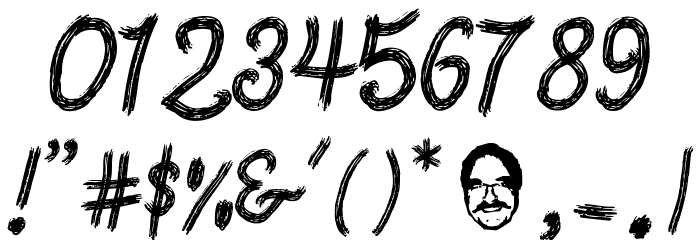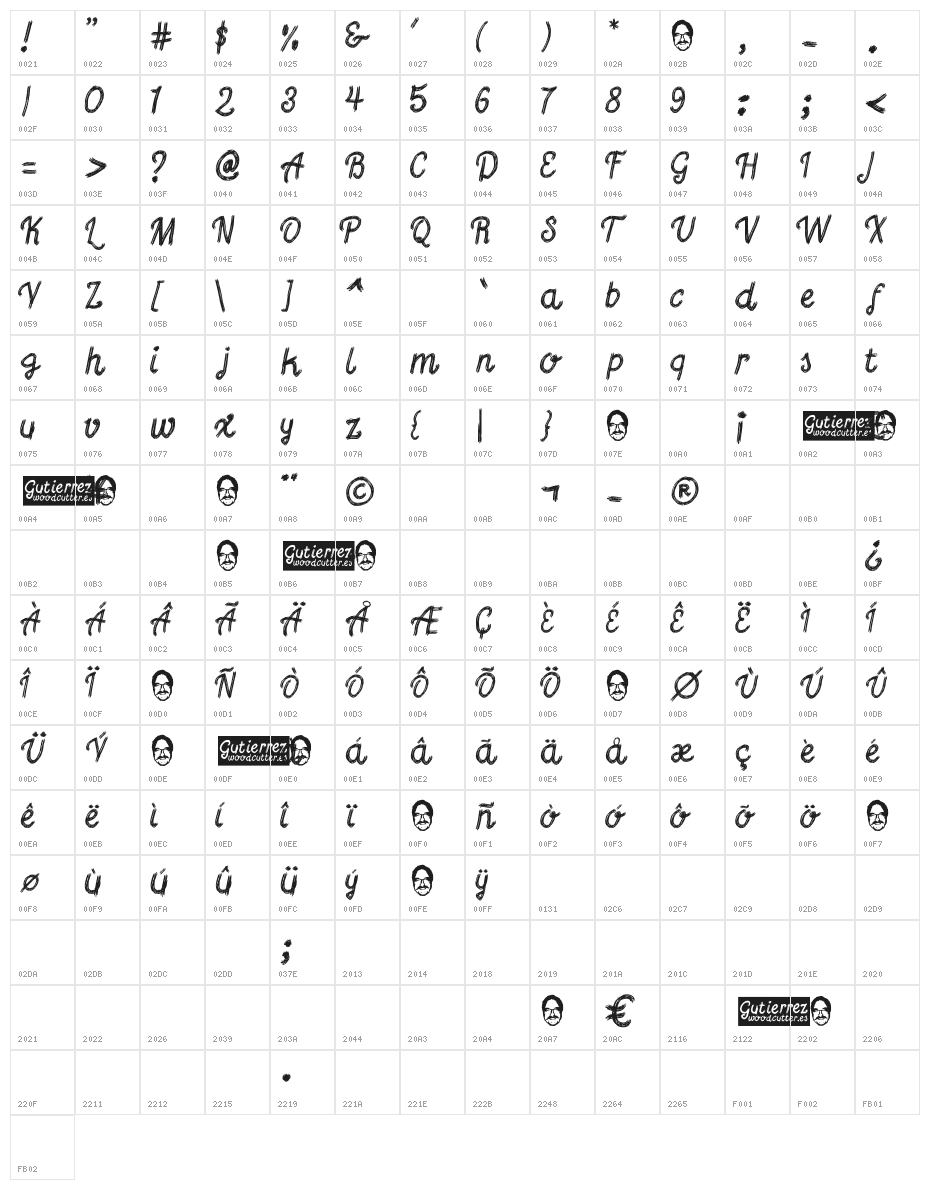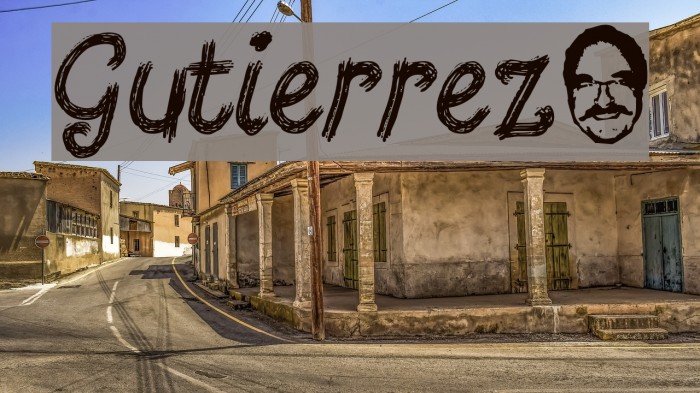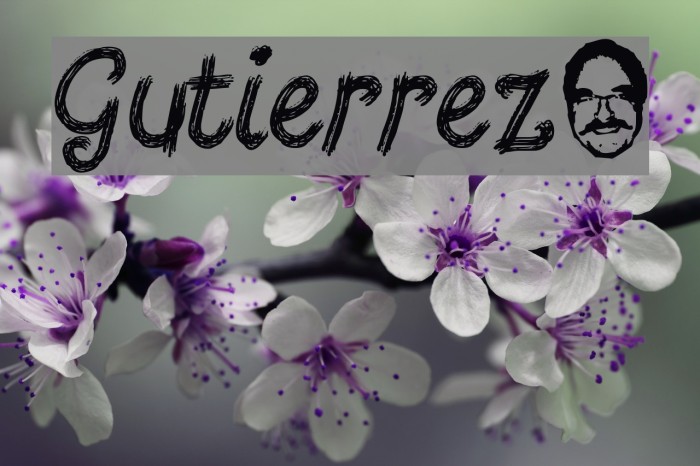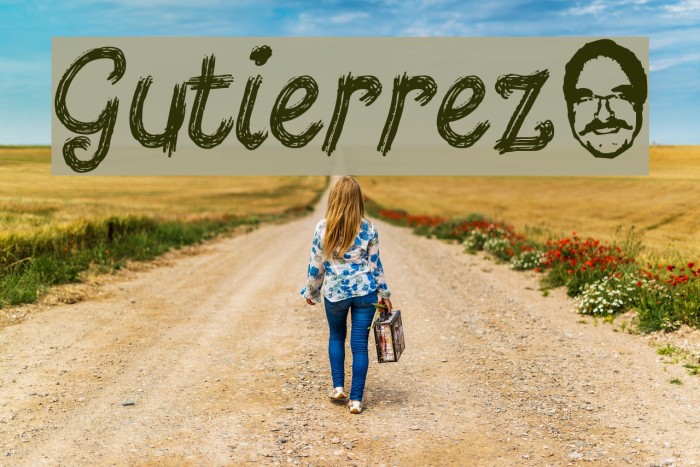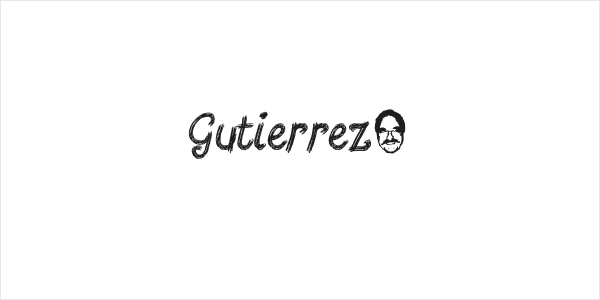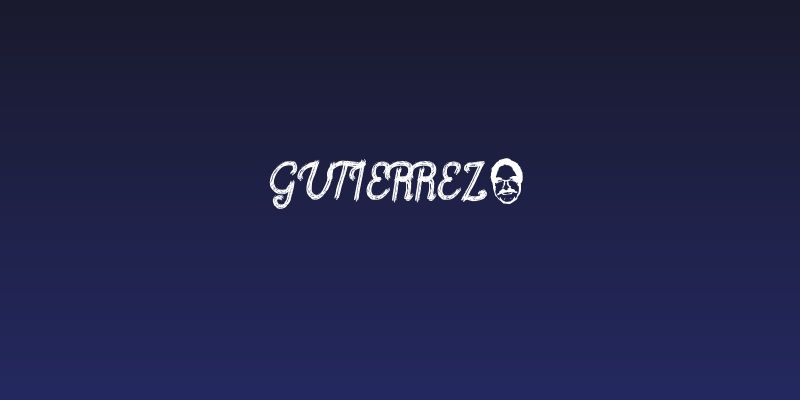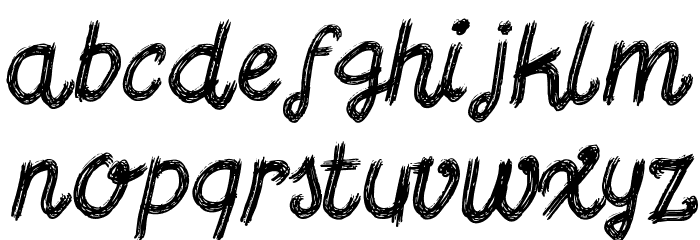
Gutierrez+ Font
Gutierrez+ Description
This font exhibits a dynamic and expressive style, characterized by its bold, brush-like strokes that convey a sense of movement and energy. The letters are crafted with a hand-drawn appearance, giving them a unique and artistic flair. The uppercase and lowercase letters maintain a consistent style, with slightly exaggerated curves and angles that add to the font's playful nature. The numerals and special characters are equally expressive, ensuring a cohesive look across all text elements. This font's distinctive personality makes it ideal for creative projects that require a touch of individuality and flair.
| Overall Style | Artistic, Expressive |
| Use Case | Logos, Posters, Creative Branding |
| Proposed Projects | Ideal for branding, posters, artistic projects, and any design requiring a bold, creative touch. |